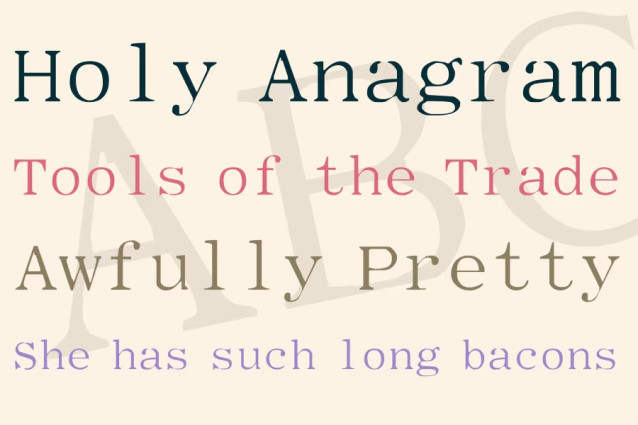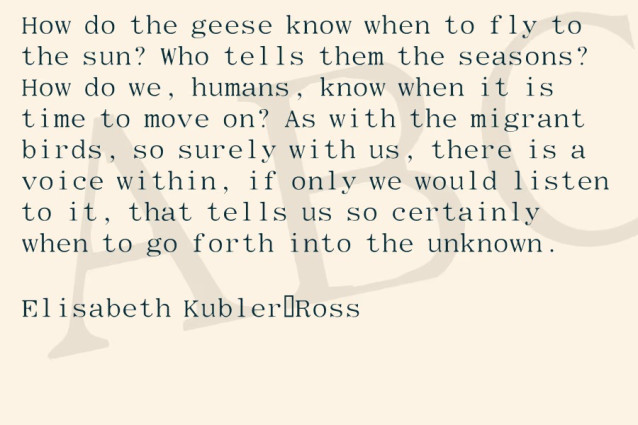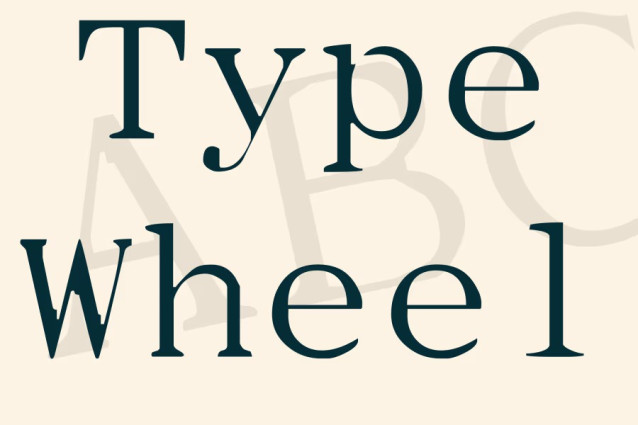
Type Wheel Font
Type Wheel Font is a serif typeface with a touch of vintage / typewriter‑charm. The characters carry classic serif styling: moderate stroke contrast, defined serifs and overall balanced proportions, giving the font a traditional, slightly old‑fashioned vibe. Because it is not 100% monospaced, letter spacing and rhythm feel more formal than typewriter‑style designs, which helps if you want readability with a vintage‑serif twist.